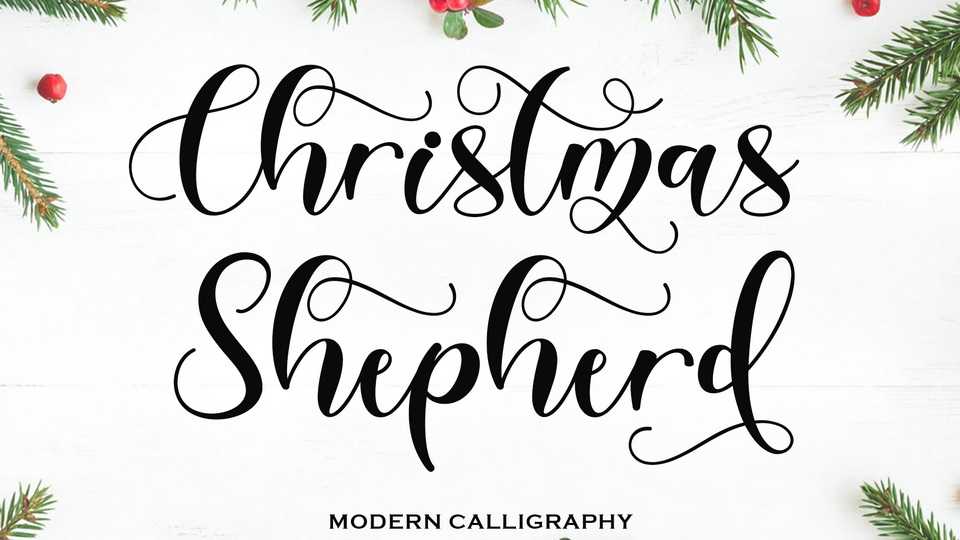
Download Christmas Shepherd font, a calligraphy script typeface with a Christmas theme. Christmas Shepherd font is very beautiful with its unique shape and has a perfect curve of letters.